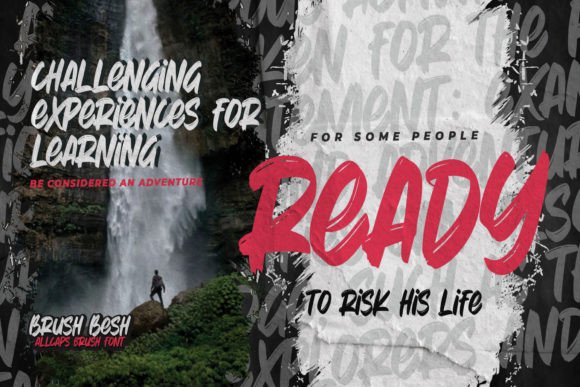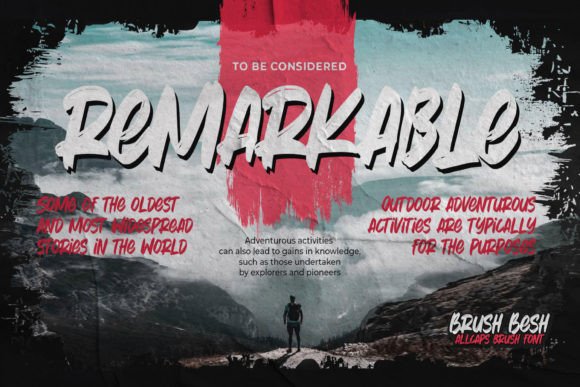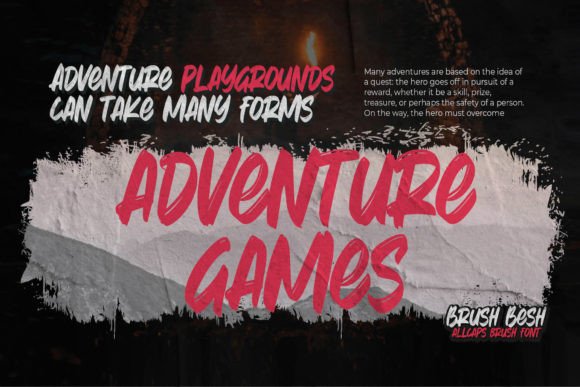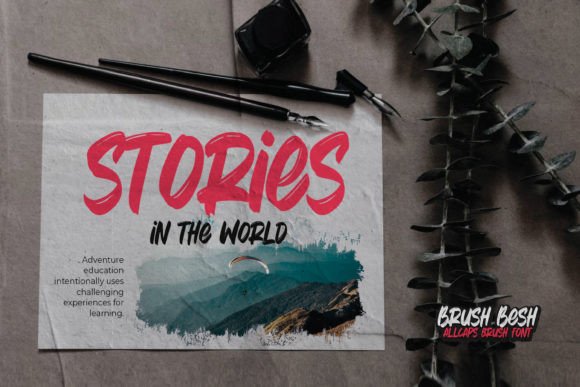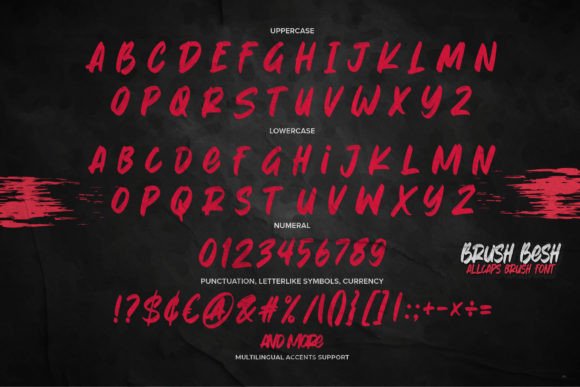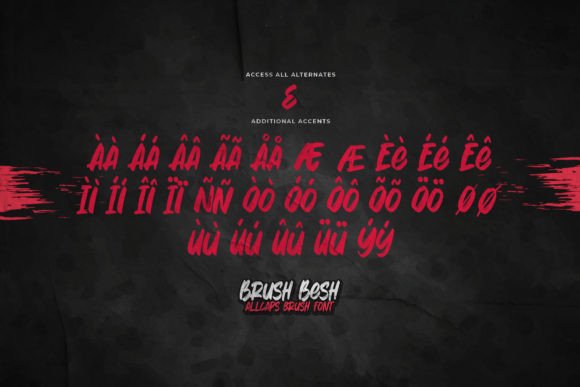
Introducing Brush Besh Font: Elevate Your Designs with a Touch of Elegance
In the world of typography, fonts play a crucial role in conveying messages, evoking emotions, and creating lasting impressions. For designers and crafters seeking a unique and sophisticated touch, Brush Besh Font emerges as an exceptional choice. This stunning caps brush font is designed to bring a textured, natural, and classy feel to your creative projects, making it perfect for a wide range of applications.
What Makes Brush Besh Font Stand Out?
Brush Besh is a caps brush font that boasts a distinctive textured natural style combined with a classy and clear aesthetic. Its dramatic movement adds a dynamic flair, making it an eye-catching addition to any design. Whether you’re working on logos, printed quotes, invitations, cards, product packaging, headers, logotypes, letterheads, posters, or designs, Brush Besh Font is engineered to enhance your creative projects with its unique charm.
One of the key advantages of Brush Besh Font is its versatility. It’s incredibly adaptable, making it suitable for various design needs. Here are some of the areas where Brush Besh truly shines:
- Logos and Branding: Create memorable and impactful logos that stand out with the elegant strokes of Brush Besh.
- Invitations and Cards: Add a personal touch to your invitations, greeting cards, and thank you notes with this beautifully crafted font.
- Product Packaging: Elevate your product packaging with a sophisticated look that captures the essence of your brand.
- Advertising and Marketing Materials: Use Brush Besh to create compelling advertisements and marketing materials that grab attention.
- Poster Design: Design stunning posters for events, promotions, or informational purposes with a font that demands attention.
- Watermark on Photography: Add a professional and artistic watermark to your photographs, enhancing their authenticity and aesthetic appeal.
Why Choose Brush Besh Font?
Choosing Brush Besh Font for your design projects comes with numerous benefits:
- Unique Style: Its textured natural style and classy appearance set it apart from more conventional fonts.
- Easy to Read: Despite its artistic strokes, Brush Besh maintains clarity, ensuring your message is conveyed effectively.
- Highly Versatile: Suitable for a wide range of projects, from digital to print.
- Time-Saving: Its comprehensive design eliminates the need for extensive customization, saving you time and effort.
Tips for Using Brush Besh Font Effectively
To maximize the impact of Brush Besh Font in your designs, consider the following tips:
- Combine with Solids: Pair Brush Besh with solid colors or gradients that complement its natural texture.
- Play with Sizes: Experiment with different font sizes to create visual hierarchy and emphasis.
- Limit Text: Brush Besh shines best when used sparingly. Use it for headlines or key messages to create a strong visual impact.
Brush Besh Font is a remarkable addition to any designer’s toolkit. Its unique blend of texture, natural elegance, and classy appearance makes it an ideal choice for those looking to add a touch of sophistication to their projects. Whether you’re a professional designer or a crafter, Brush Besh Font offers endless possibilities for creative expression. Explore its potential and elevate your designs to new heights of elegance and professionalism.